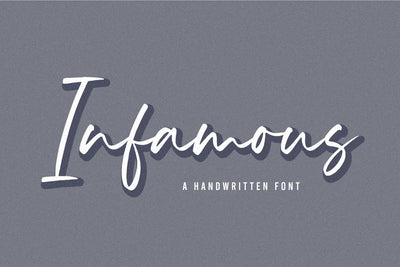
Infamous a Handwritten Font
Infamous is a Handwritten Font.
Whether you’re using it for crafts, digital design, presentations, or making greeting cards, this font has the potential to become your favorite go-to font, no matter the occasion!